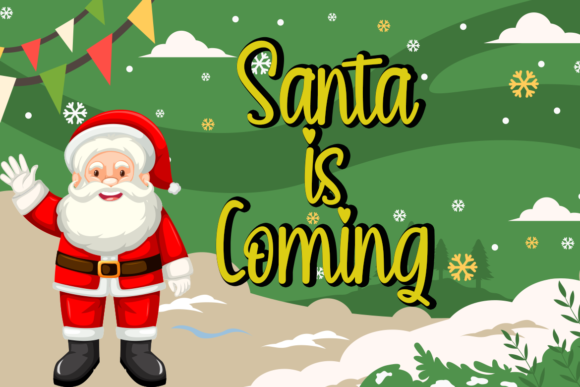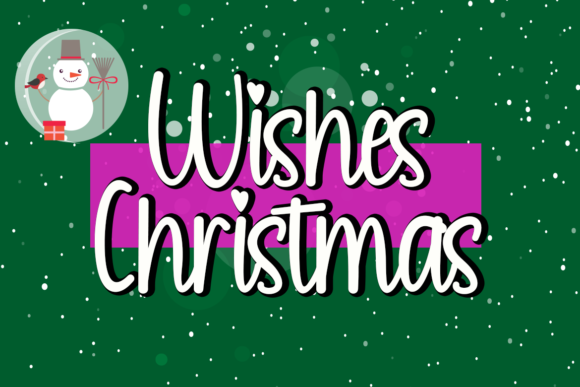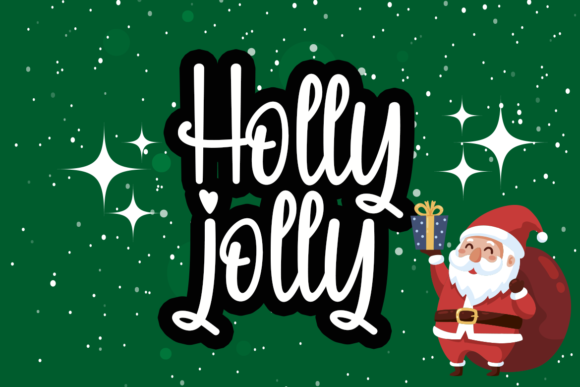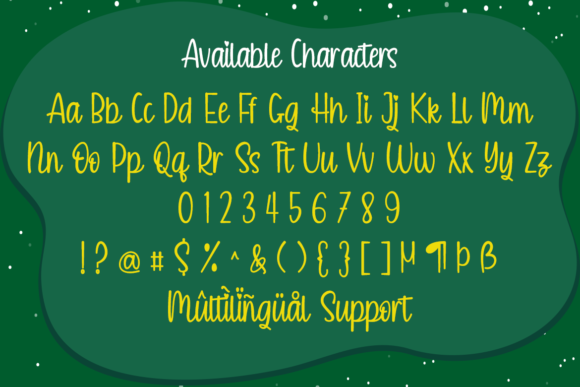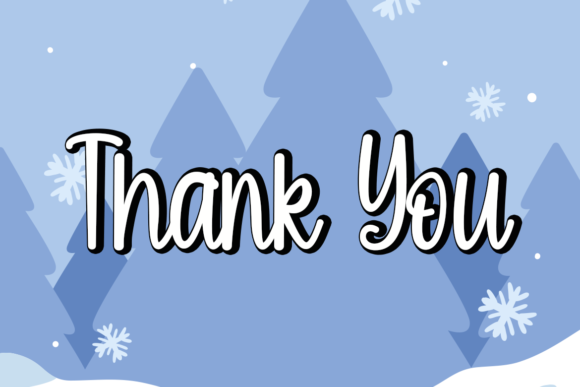
Magicbell Font
About Magicbell Font
Magicbell is a beautiful and refined script font. It has a classy, elegant, and modern look that can be used for logos, branding, invitations, stationery, wedding designs, social media posts, and much more!